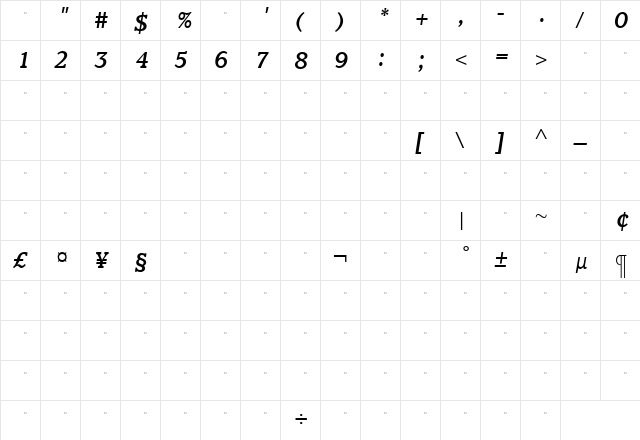
ClaremontMedItalTab Roman
Design Context for ClaremontMedItalTab Typeface
ClaremontMedItalTab offers clean, dependable letterforms without strong stylistic allegiance, making it a practical choice for designers who need flexibility.
Pro Tip: Use ClaremontMedItalTab in both headline and body roles to test its range before committing to a single application.